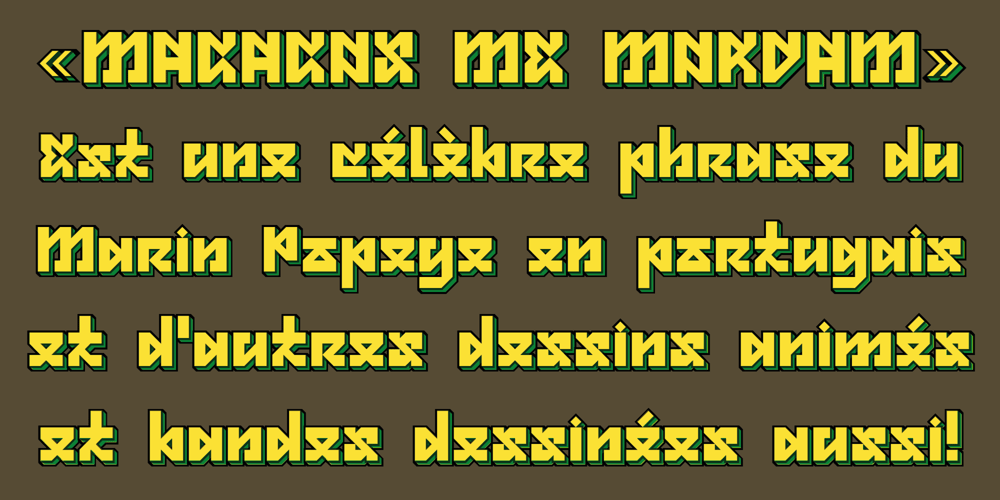
MMC Grafik Font Family was designed by Dr. Andréground and published by MMC-TypEngine. MMC Grafik contains 22 styles and family package options. MMC-Grafik is a Modular Matrix “Calligraffiti” Robotic Letterform Typeface!This Typeface is inspired by Graffiti Calligraphic Broad Markers and Underground Lettering Technic and Style, and grid based by diagonals and perpendiculars to the square! First released part from a juxtaposed “Type-Game” based on inversions and rotations as a kind of puzzles!NEW TIP! – Letter-Spacing:Letter-spacing can seem to be a little tight on this font-collection, after a while from had first designed and published, it was discovered that the space between the letters currently set to the half width of the ‘I’ or the ‘stem’ would be better readable and improve legibility if the letter-spacing sum equals to the ‘I’ or stem.In order to fix that and improve type results the user who picked these fonts can use a simple trick or tweak with the 2 secrets below, that will make the letter-spacing fit perfectly as it should with a one to one equal 100% exact width.For Web-Fonts Sites Development usage:1. Set Letter-spacing to 0.075em.For Type and Design in Adobe Software’s:2. Or Use Tracking value of ‘35’. Tracking is the opposite of kerning and both Kerning and tracking fields can be found side by side in character panels.*A future re-edition replacement update is planned to come fix this and a few other more improvements as soon as possible.Layer Type-Setting Tips:1. Combine styles into multiple possibilities of Chromatic Typesetting, by ‘central pasting’ layers… You may dislocate layers for improvisations!2. USE BLOCK-STYLES 1 & 2 also to add default 3D! Change 3D directions by switching Block 1 to Block 2. You may also set the block layer up to the bottom limit and make the 3D direction turn upside down.*As also, using the suggested tracking or letter-spacing adjustments will enable more combinations results as styles with layered Designs.Usage-Suggestions:Type cool legible digital manuscript Aesthetics body text, scripts, lyrics, articles; Plus, Create Fancy Display’s Branding designs, Packaging, Publishing, Advertisement, Posters, Art Support, Motion, Games, or texting anything else that may taste good!Count with Responsive OpenType Features, like Fractions, Ordinals, Nominators, Denominators, Scientific Inferiors, Numerators, Localized forms and Kerning.Previous Released in 2020 & Post Released by MMC-TypEngine 2022.*All Styles have 917 Glyphs.Follow the Groove!! & Power to The Pixel!!Greetings!! André, MMC-TypEngine (Dr. Andréground).